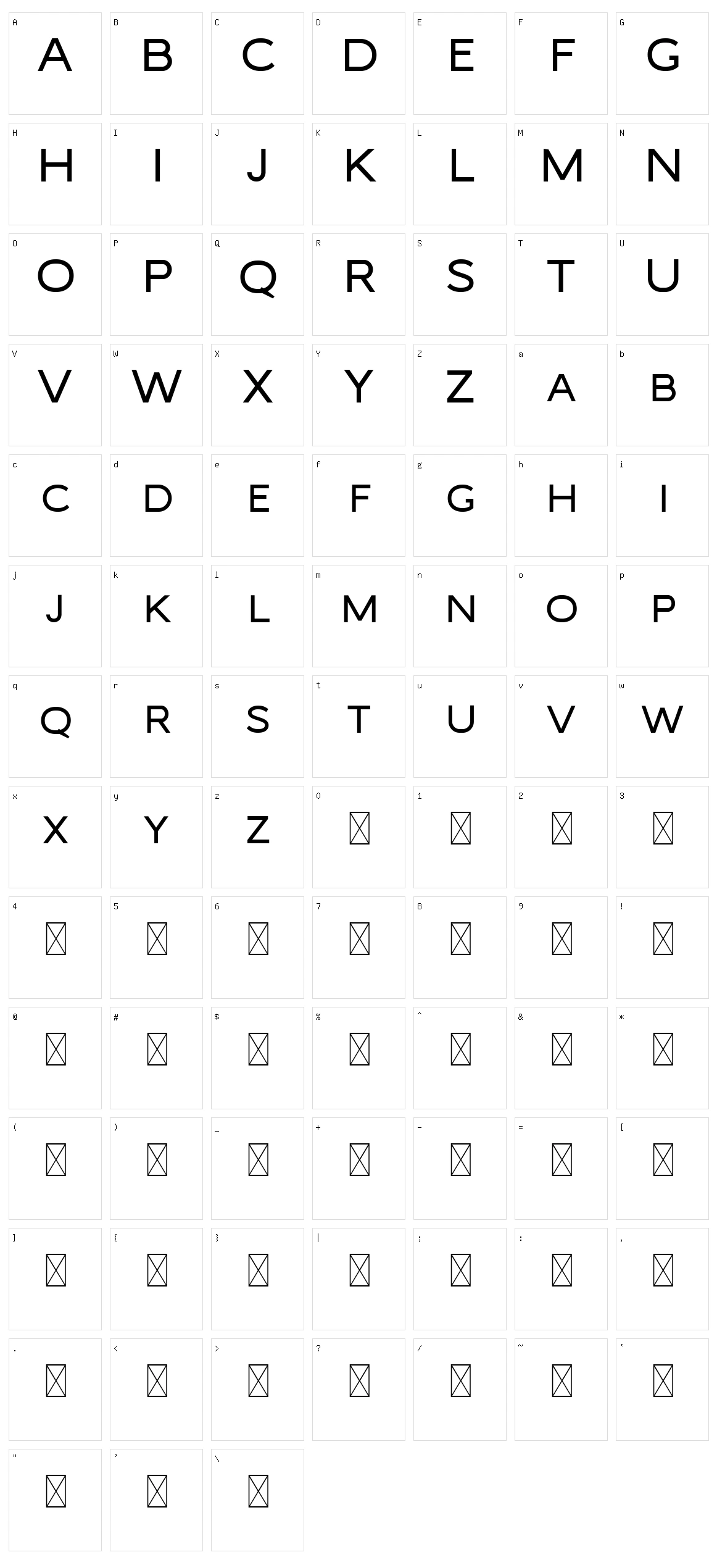
The free font Malibu Sunset Sans is carefully designed by Craft Supply Co., showcasing a thoughtful balance of creativity and usability and falls under the Sans serif font style. When you download the ZIP file, it contains only 153.4 KB of font files, making it lightweight and quick to download. Please review the license details below to understand permitted usage and distribution rights. If license information is not available, we recommend using this font for personal projects only or contacting the author directly for commercial usage permissions.